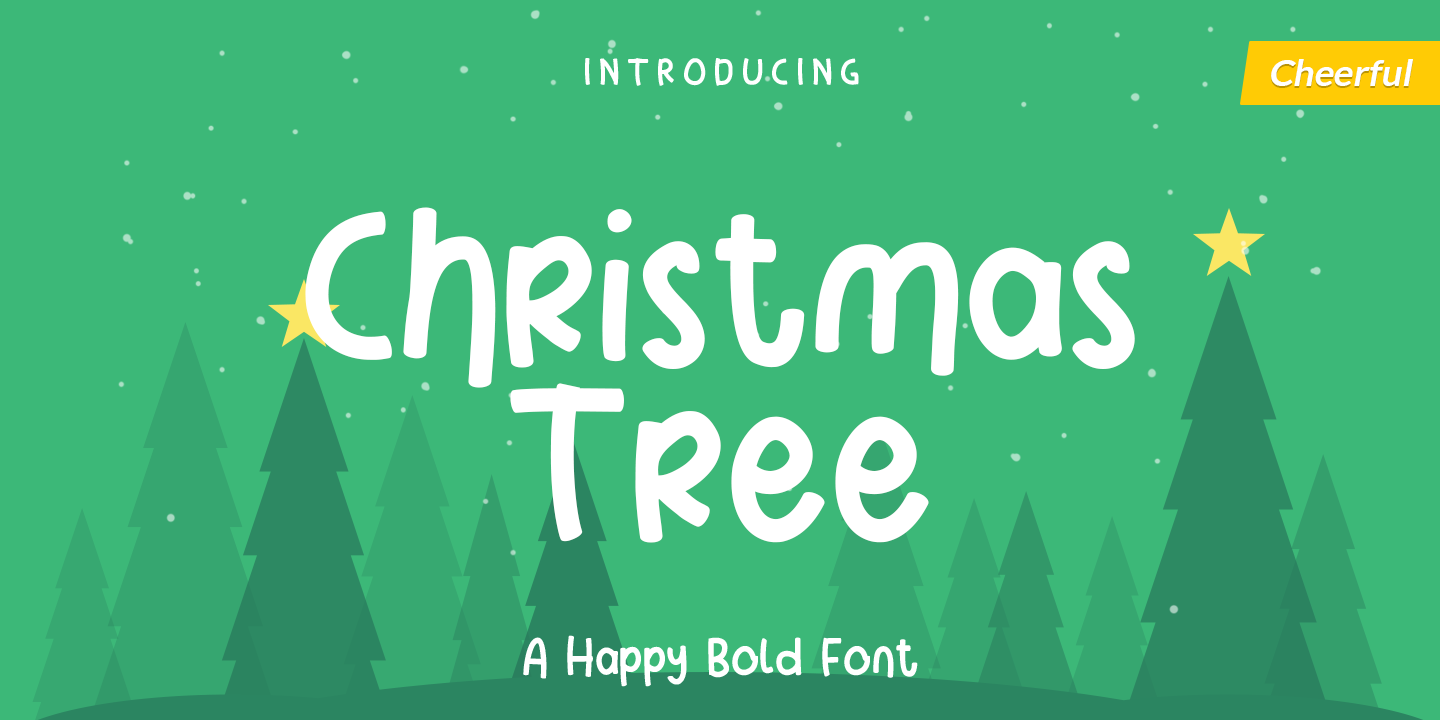
Christmas Tree Font is a festive and charming display typeface that instantly evokes the joyful spirit of the holiday season. It's perfectly suited for projects that aim to convey warmth, cheer, and a celebratory mood, such as holiday greeting cards, festive event invitations, seasonal product packaging, and cozy home decor designs. Imagine Christmas Tree Font decorating a Christmas party banner, adding a whimsical touch to gift tags, or providing a cheerful headline for a winter holiday sale. Its unique character, often incorporating decorative elements reminiscent of ornaments, snowflakes, or actual tree branches, ensures your message stands out with remarkable holiday spirit and an immediate sense of festive cheer.
What makes Christmas Tree Font truly exciting is its ability to infuse designs with immediate holiday magic. This font is designed to bring a smile, making it ideal for headlines and titles where a strong thematic impact is crucial. The unique design of its letterforms, often featuring playful serifs, rounded edges, or embedded decorative details, contributes to its distinctive and memorable personality. It’s more than just a typeface; it’s an artistic tool that helps convey the warmth, joy, and charm of the holiday season, making it perfect for projects that demand a whimsical and festive aesthetic.
Christmas Tree Font typically functions as a display font, meaning its primary strength lies in headlines, logos, and short bursts of text where its unique characteristics can truly shine. While it may not feature an extensive range of weights or styles like a comprehensive text family, its impact comes from its singular, powerful design. It often includes a standard set of uppercase and lowercase letters, numbers, and basic punctuation, with its distinct stylistic elements being the main draw. This focused approach means that the Christmas Tree Font Free Download is an invaluable asset for creating eye-catching and memorable design elements that instantly communicate a powerful and striking theme, setting your work apart.